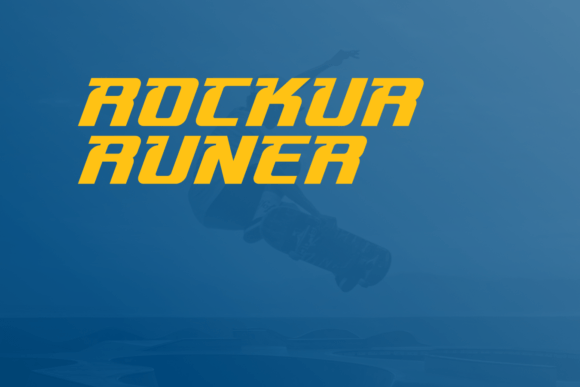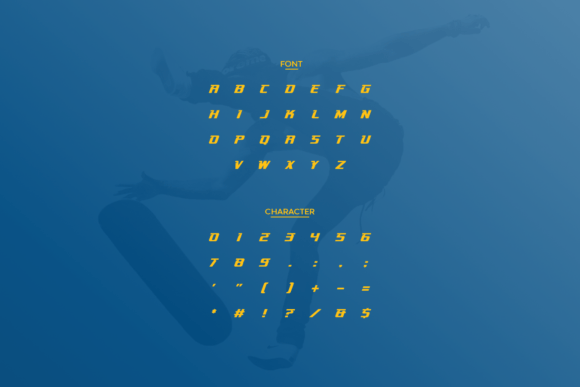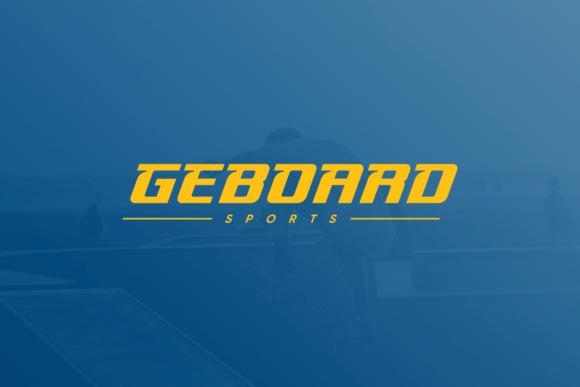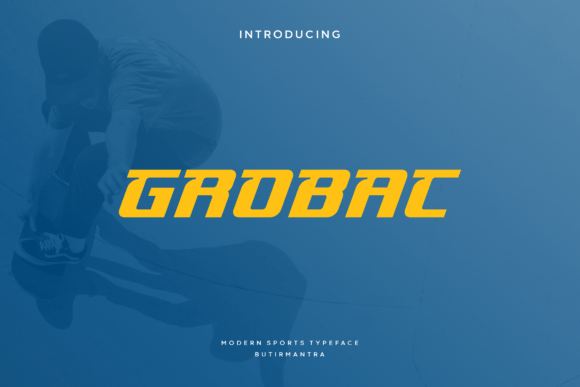
Grobac Font: Elevate Your Designs with a Stylish and Modern Sans-Serif Font
In the world of typography, a good font can make all the difference in the success of a design project. Whether you’re a seasoned designer or a crafty DIY enthusiast, having the right font in your arsenal can elevate your creations from ordinary to extraordinary. That’s where Grobac Font comes in – a stylish and modern sans-serif font that’s sure to become an incredible asset to your font library.
What is Grobac Font?
Grobac Font is a sleek and contemporary sans-serif font designed to bring a touch of sophistication and elegance to any design project. Its clean lines, precise curves, and carefully crafted letterforms make it perfect for a wide range of applications, from digital designs to print materials.
Key Features of Grobac Font
- Modern and Stylish: Grobac Font boasts a fresh and modern aesthetic that’s sure to turn heads. Its sleek lines and curves give it a sophisticated look that’s perfect for designs that require a touch of elegance.
- Versatile: Whether you’re designing a logo, brochure, website, or social media graphics, Grobac Font is versatile enough to adapt to any style or theme.
- Highly Legible: The font’s clear and precise letterforms ensure that it’s highly legible, even at small sizes, making it perfect for body text or captions.
- Easy to Pair: Grobac Font pairs well with a wide range of font styles, allowing you to create stunning font combinations that elevate your designs.
Why Choose Grobac Font?
With so many fonts available, why choose Grobac Font? Here are just a few reasons why designers and crafters are falling in love with this amazing font:
- Unique and Exclusive: Grobac Font offers a unique and exclusive look that’s sure to set your designs apart from the crowd.
- Time-Saving: With Grobac Font, you can save time and effort in your design process. Its versatility and legibility mean you can use it for a wide range of projects, from branding to advertising.
- Professional-Grade: Grobac Font is designed to meet the needs of professional designers and crafters. Its high-quality design and precise letterforms make it perfect for commercial projects.
How to Use Grobac Font in Your Designs
Now that you’re excited about Grobac Font, here are some tips on how to use it in your designs:
- Pair it with bold fonts: Combine Grobac Font with bold fonts for a striking contrast that adds visual interest to your designs.
- Use it for headings: Grobac Font is perfect for headings, titles, and captions. Its modern look and high legibility make it ideal for grabbing attention.
- Experiment with colors: Grobac Font looks great in a wide range of colors. Experiment with different hues and shades to find the perfect combination for your design.
In conclusion, Grobac Font is an incredible asset to any designer’s or crafter’s font library. Its stylish and modern sans-serif design, versatility, and high legibility make it perfect for a wide range of applications. Whether you’re working on a commercial project or a personal DIY endeavor, Grobac Font is sure to elevate your creations and help you achieve professional-grade results.